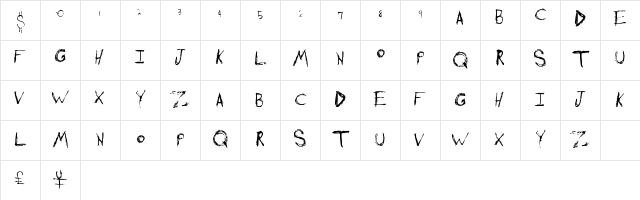
ShreddingHarder Regular
Foundry: Xerographer Fonts
Designer: Max Infeld
Design Context for ShreddingHarder
ShreddingHarder is a composed and adaptable typeface that performs quietly and consistently across a wide range of design contexts.